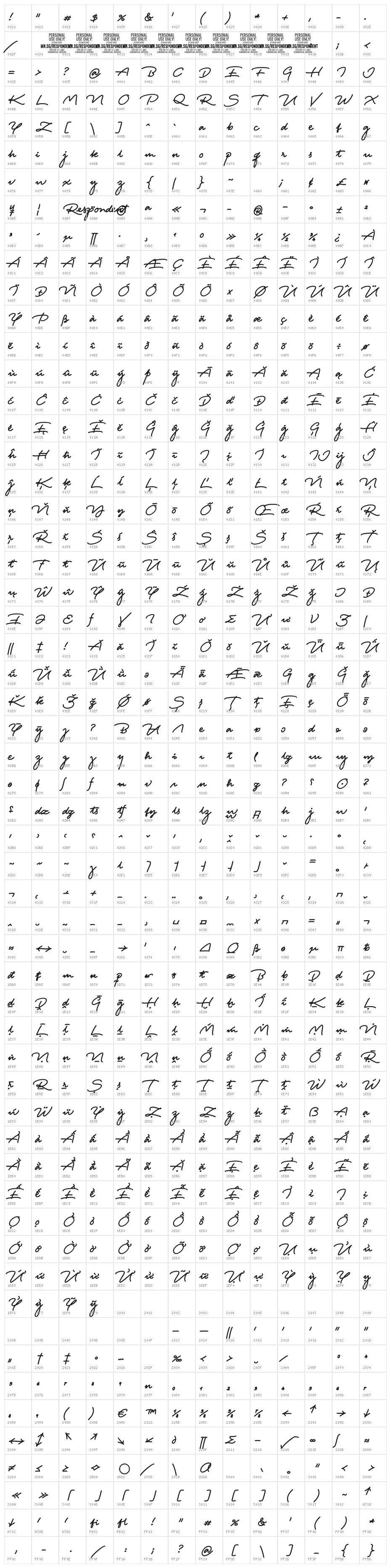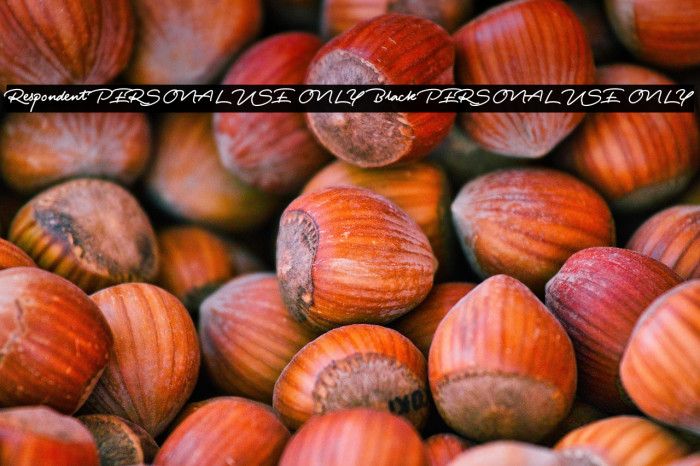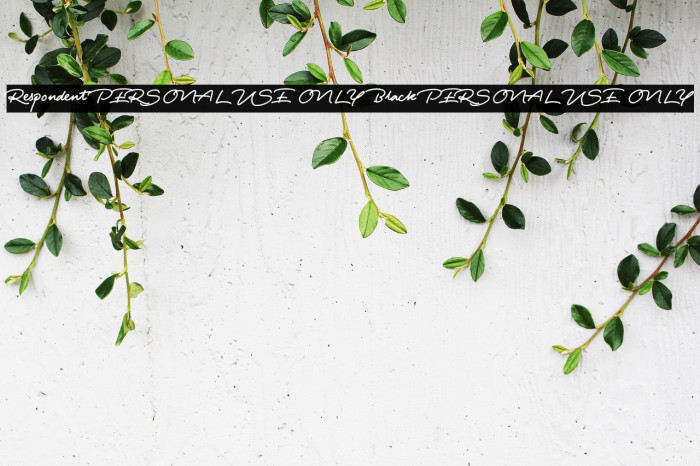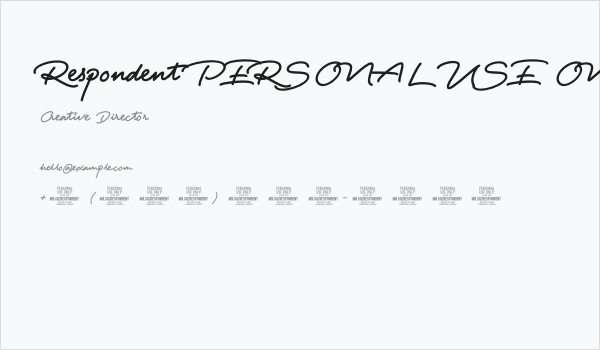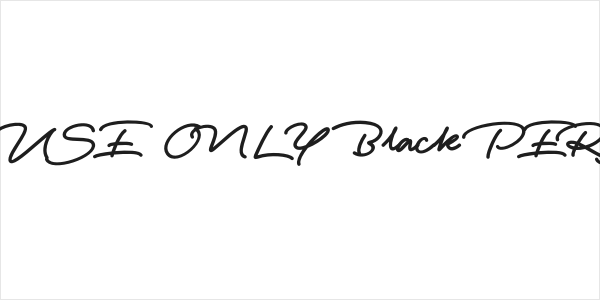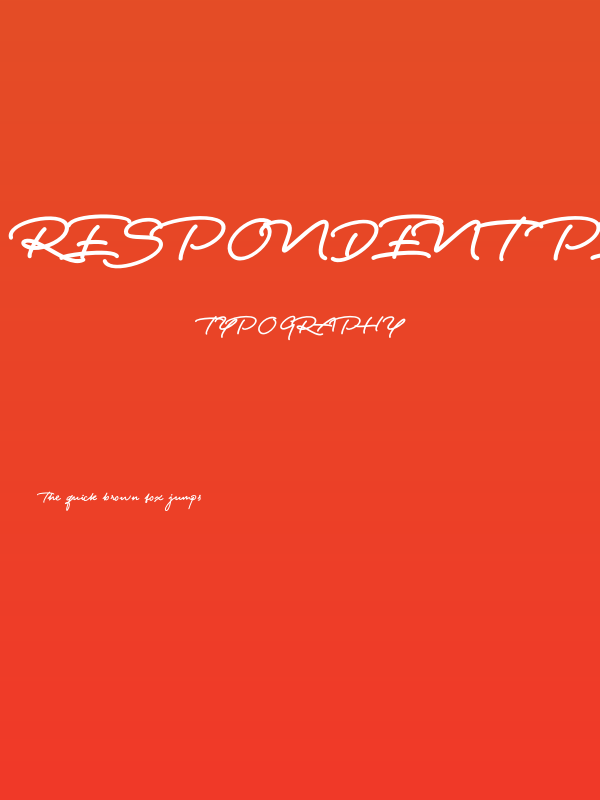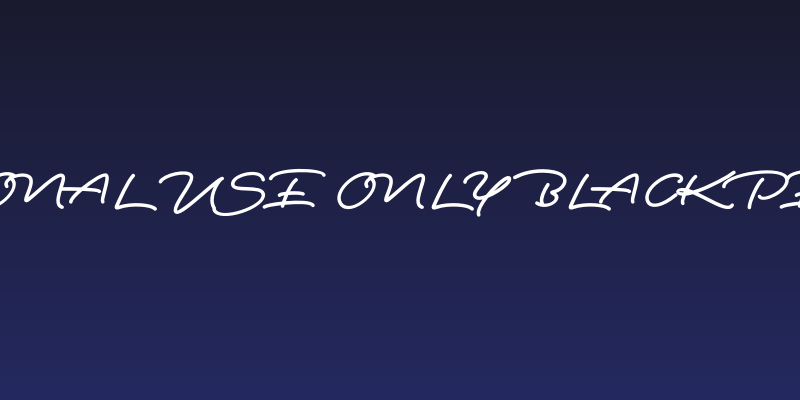
Respondent PERSONAL USE ONLY Black PERSONAL USE ONLY Font
Respondent PERSONAL USE ONLY Black PERSONAL USE ONLY Description
This font features a dynamic and fluid script style, characterized by its elegant and flowing letterforms. The uppercase letters exhibit a graceful, cursive design with smooth curves and a consistent slant, giving them a sophisticated appearance. The lowercase letters maintain this fluidity, with some characters featuring loops and swashes that enhance the font's decorative nature. The numerals and special characters are crafted with the same attention to detail, ensuring a cohesive look across all glyphs. This font's overall aesthetic is both stylish and expressive, making it suitable for projects that require a personal touch.
| Proposed Projects | Ideal for wedding invitations, greeting cards, branding projects, and any design that requires a personal and elegant touch. |